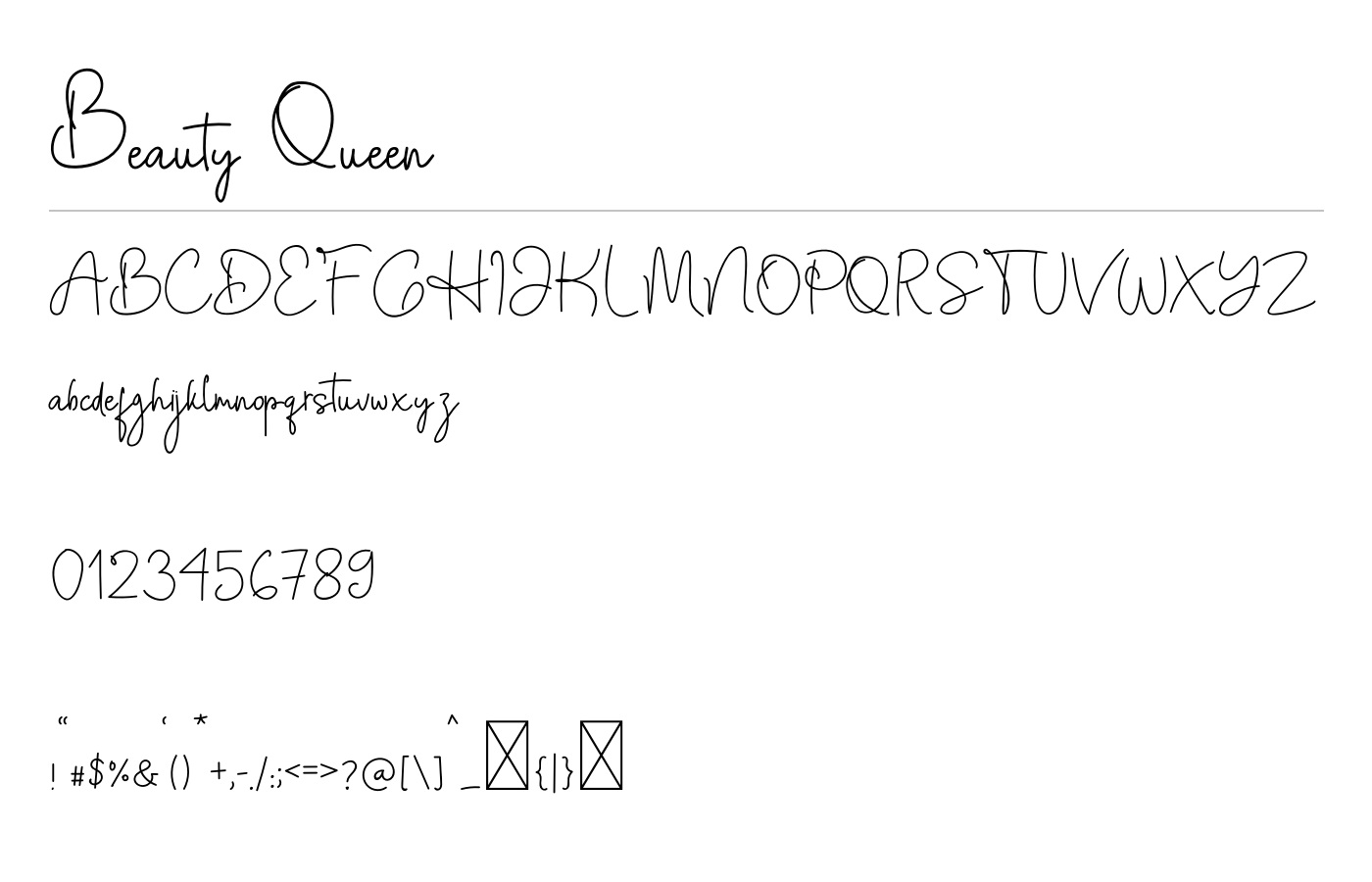
Beauty Queen is a delicate, handwritten script font with thin, elegant strokes and a whimsical, playful feel. Its tall, airy letterforms and irregular shapes give it a personal, artistic touch perfect for feminine branding, invitations, and creative projects needing a light, charming style. This font works beautifully in headlines, logos, and decorative text where a casual, yet refined look is desired.
Beauty Queen Font
About Beauty Queen Font
| Font family | Beauty Queen Font |
| Designer | erik studio |